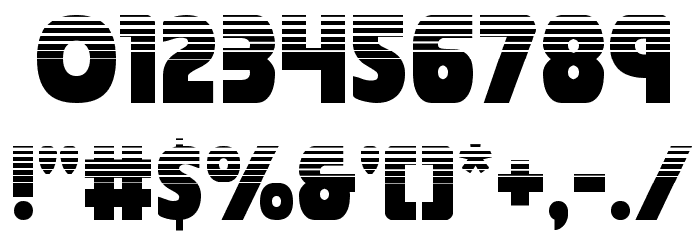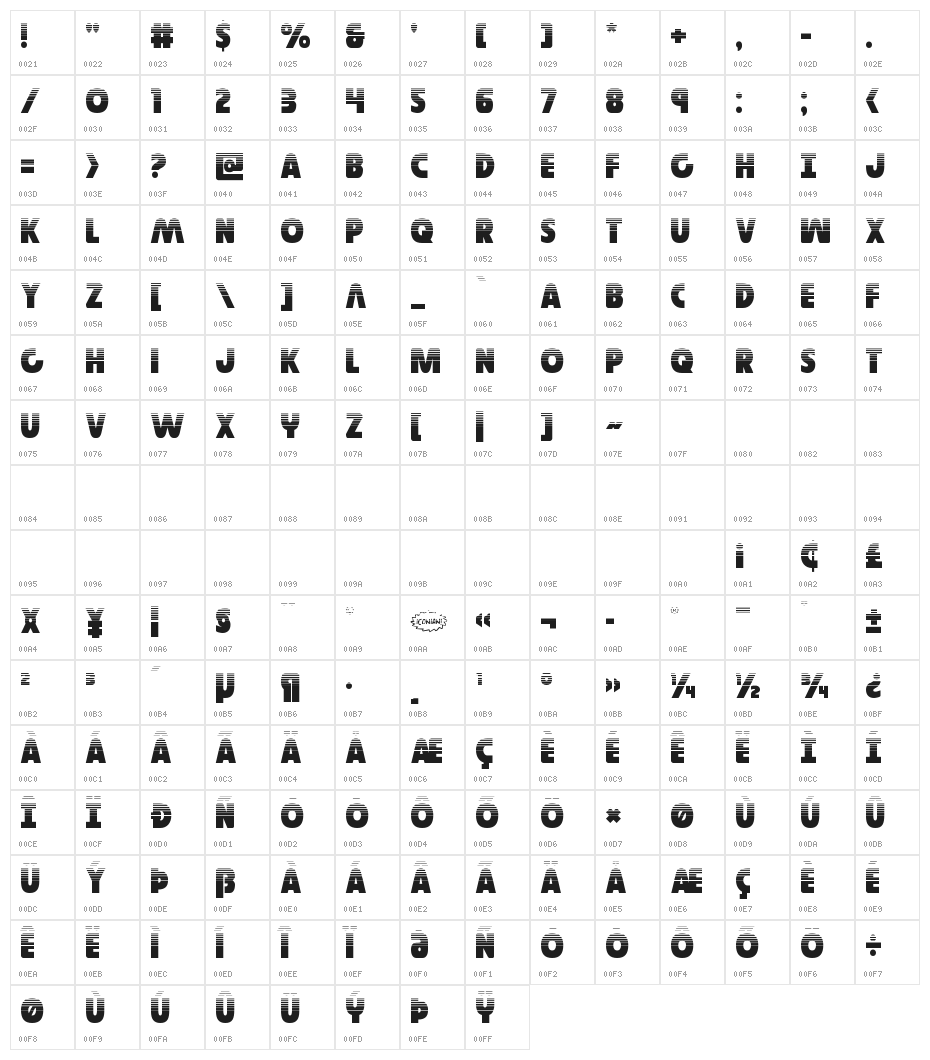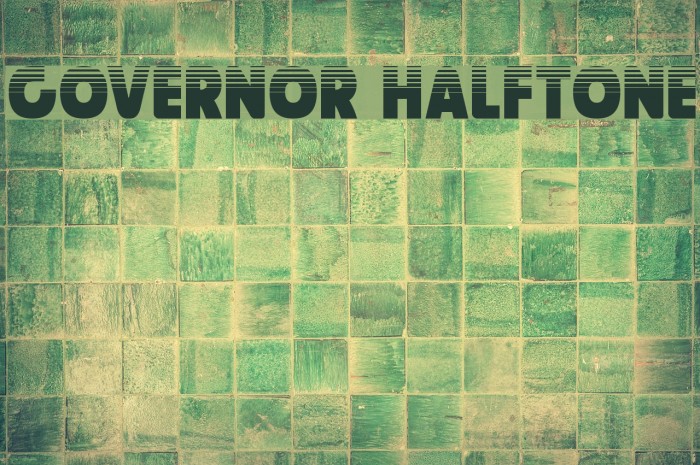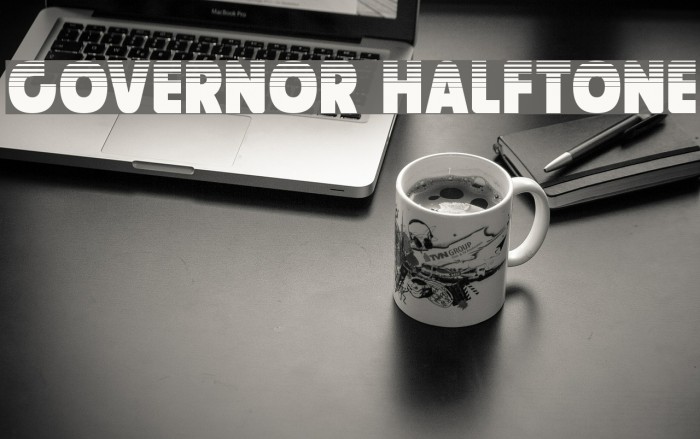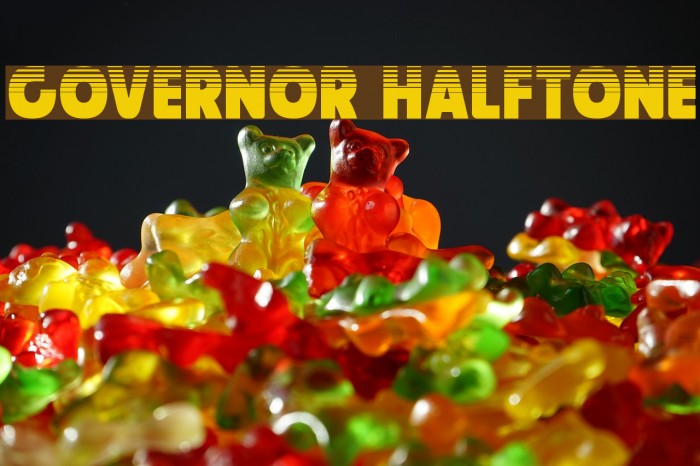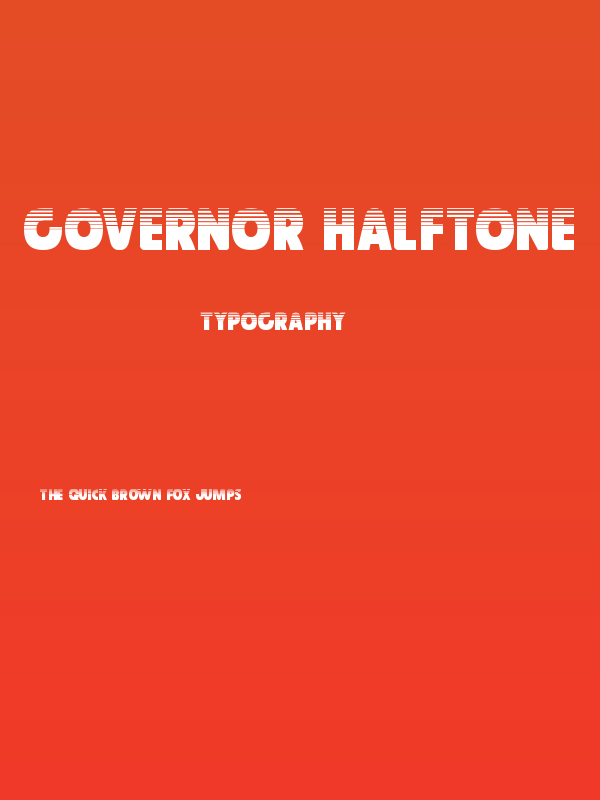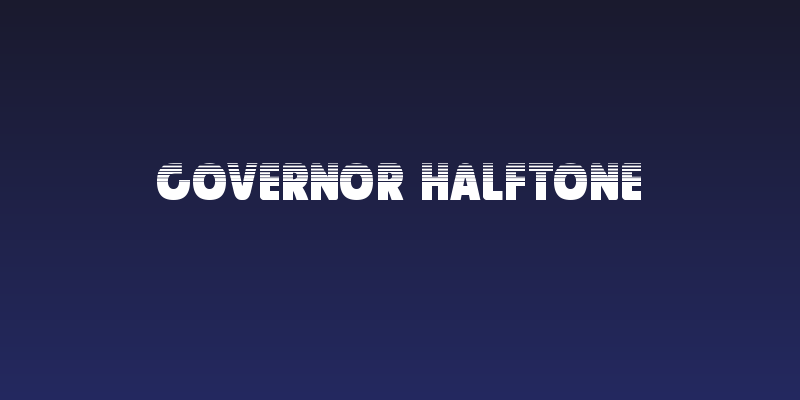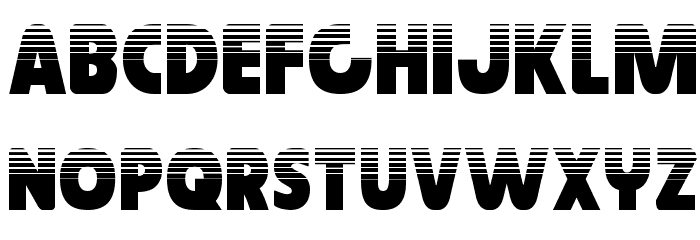
Governor Halftone Font
Governor Halftone Description
This font features a bold, geometric design with a distinctive halftone effect. Each character is composed of solid black shapes interspersed with horizontal white lines, creating a dynamic and eye-catching pattern. The uppercase letters are particularly striking, with their strong, angular forms and high contrast. The numbers and special characters maintain this bold style, ensuring consistency across all glyphs. This font's unique halftone appearance gives it a modern, digital feel, making it ideal for projects that require a contemporary and innovative look.
| Proposed Projects | Ideal for digital art, modern posters, branding, and any project needing a contemporary edge. |